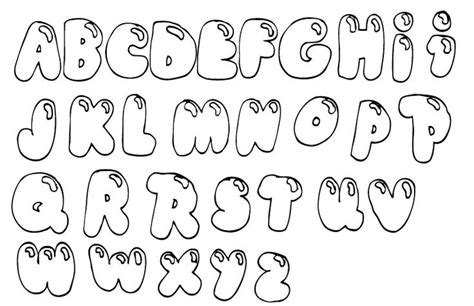
Tagging is the simplest type of graffiti, usually done quickly in spray paint, markers or pens and lacking artistic form; Add this sweet and full of life font to each of your creative ideas related to either school or children, and you will love the results. Download the bubble letters font by vanessa bays.
See more ideas about lettering alphabet, lettering styles, tattoo lettering fonts. Choose from bubble letter themed fonts such as brewsky font, groovy font, hole font, kingthings bloone font and mckloud storm font. Go italics handwriting elegant graffiti arabic ancient. Our tattoo font generator can help add some asian accent to your next tattoo, and is a popular font type with.
It is a free online letter generator program so you can create your own cool tattoo letters with your custom text. Picking a font for your next tattoo is a very important decision. Add this sweet and full of life font to each of your creative ideas related to either school or children, and you will love the results. Stenciling.